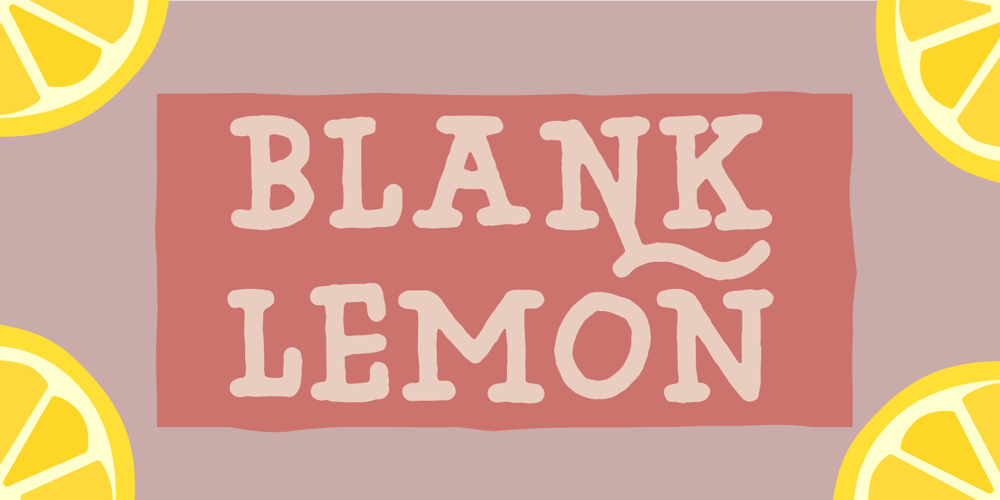
Blank Lemon Font Family was designed by Jakob Fischer and published by PizzaDude.dk. Blank Lemon contains 2 styles and family package options. Blank Lemon is my heavy stroke handmade serif font. Yes, it is heavy and it’s loud and is very noisy when it comes to making your headlines visible and the reason for this is that the shapes of the font is based on classic serif fonts.Blank Lemon comes with 7 different versions of each letter, and these automatically cycle as you type. Also there are fancy swashes of a, k, n, q and r – and of course multilingual support!Enjoy!